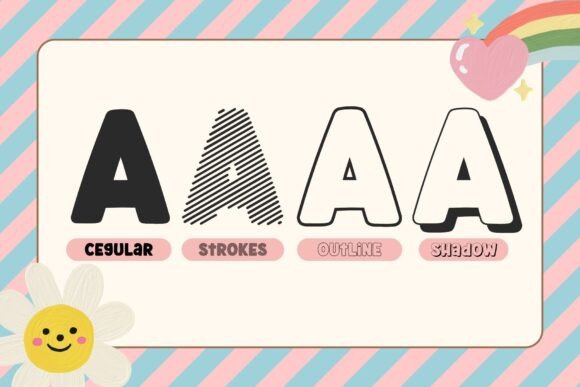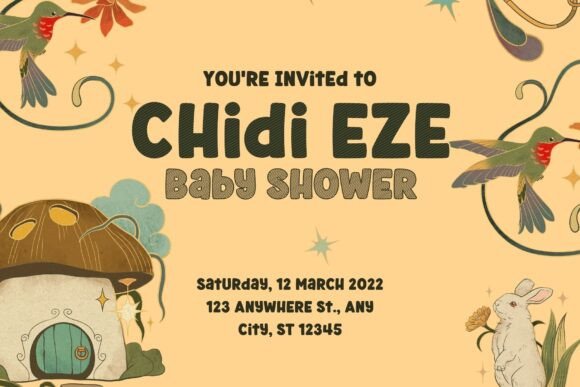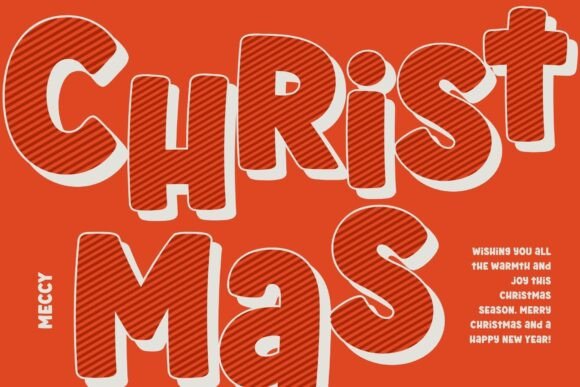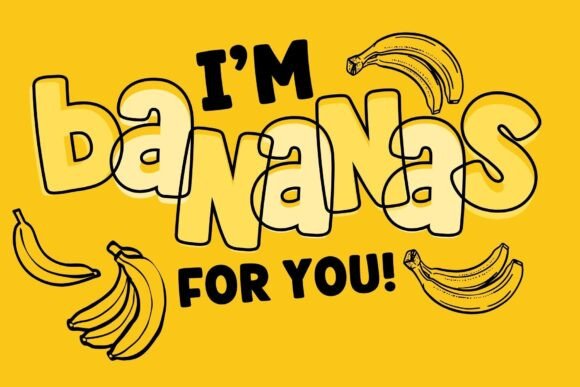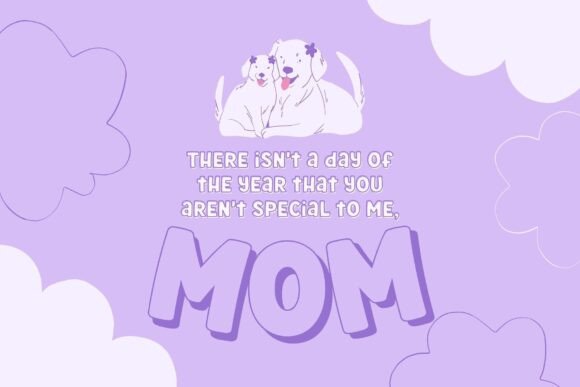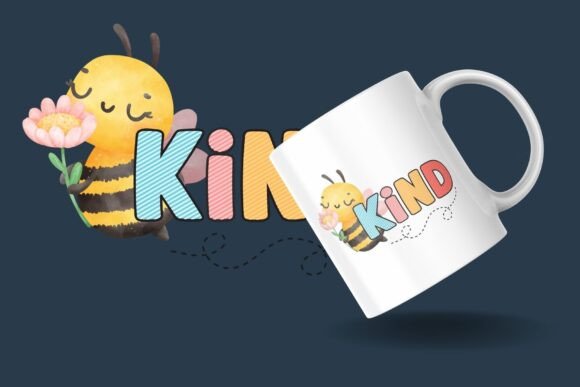
The Ultimate Display Font: Fox Vincent Font Review and Guide
I’ll never forget the time I was working on a branding project for a trendy cafe, and I just couldn’t find the right font to capture their playful yet sophisticated vibe. The client wanted something that would stand out on their menus, business cards, and merchandise, but I was stuck. That’s when I stumbled upon the Fox Vincent Font, and it completely transformed my design. In this article, I’ll share my experience with this versatile display font, its features, and how to make the most of it in your designs.
First Impressions: What I Love About Fox Vincent Font
The Fox Vincent Font is a game-changer for any designer looking for a font that radiates charm and playfulness. Here are some things I love about it:
- ✨ Four distinct styles: This font comes with four different styles, giving you plenty of options to experiment with and find the perfect fit for your project.
- ✅ Cool and captivating design: The font’s design is not only visually appealing but also infuses energy into any project, making it perfect for publications, menus, logos, business cards, or even t-shirts.
- 🔥 Vibrant and expressive: The Fox Vincent Font is perfect for creating eye-catching headlines, dynamic typography for apparel, bold banners, product labels, and much more.
The Not-So-Perfect: Small Quirks and Limitations
No font is perfect, and Fox Vincent Font is no exception. Here are a few things to keep in mind:
- 🤔 Limited use in body text: While the font is amazing for display purposes, it might not be the best choice for body text due to its bold and playful nature.
The Story Behind Fox Vincent Font
The Fox Vincent Font was designed with the goal of creating a versatile and playful display font that could bring energy and charm to any project. The designer aimed to craft a font that would be perfect for creative entrepreneurs, designers, and crafters looking for a unique and captivating font to elevate their brand.
| Font Name | Fox Vincent Font |
| Author | Fox7 |
| What type of projects is Fox Vincent Font best suited for? | Fox Vincent Font is perfect for publications, menus, logos, business cards, t-shirts, and any project that requires a bold and playful display font. |
| Can I use Fox Vincent Font for body text? | While it’s possible, Fox Vincent Font is primarily designed for display purposes, and its bold nature might not be ideal for extended body text. |